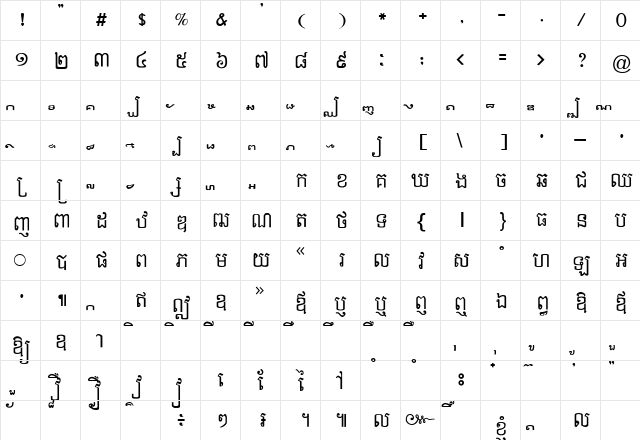
Kh-SrokKhleang Regular
Design Context for Kh-SrokKhleang Typeface
Kh-SrokKhleang offers clean, dependable letterforms without strong stylistic allegiance, making it a practical choice for designers who need flexibility.
Pro Tip: Use Kh-SrokKhleang in both headline and body roles to test its range before committing to a single application.